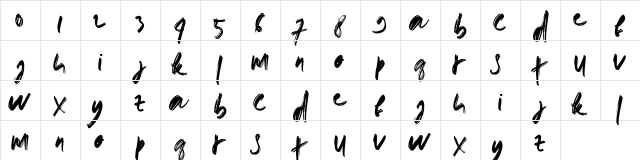
doremi brush Regular Font Preview
doremi brush Regular
doremi brush Regular Font Details
Design Context for doremi brush Typeface
doremi brush flows with the natural rhythm of handwritten lettering, making it ideal for designs that call for warmth and personal expression.
Font Pairing: Combine doremi brush with a simple geometric sans for maximum contrast — the tension between flowing curves and clean structure is a classic typographic pairing.
Pro Tip: Pair doremi brush with a clean sans-serif for supporting text. The contrast between fluid script and geometric structure creates an elegant typographic hierarchy.